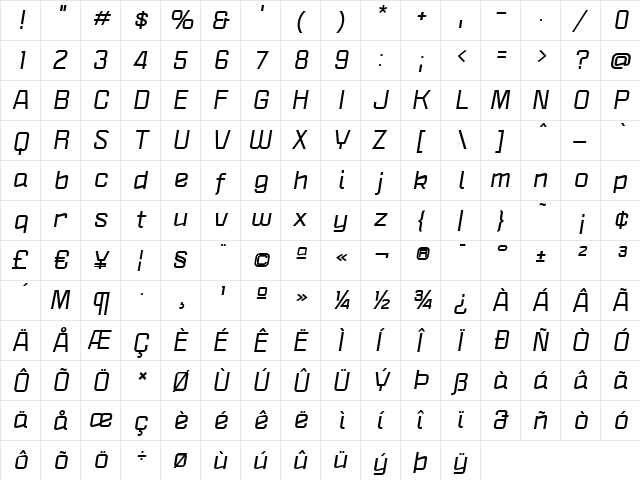
Politica XT Bold Italic
Bold Italic · Alejandro Paul Alejandro Paul & Alfredo Graziani ·
DesignerAlejandro Paul & Alfredo Graziani
Design Context for Politica XT Typeface
Politica XT offers clean, dependable letterforms without strong stylistic allegiance, making it a practical choice for designers who need flexibility. The dynamic lean of this cut emphasises speed and emphasis in any layout. Its bold stroke weight gives it real presence on the page.